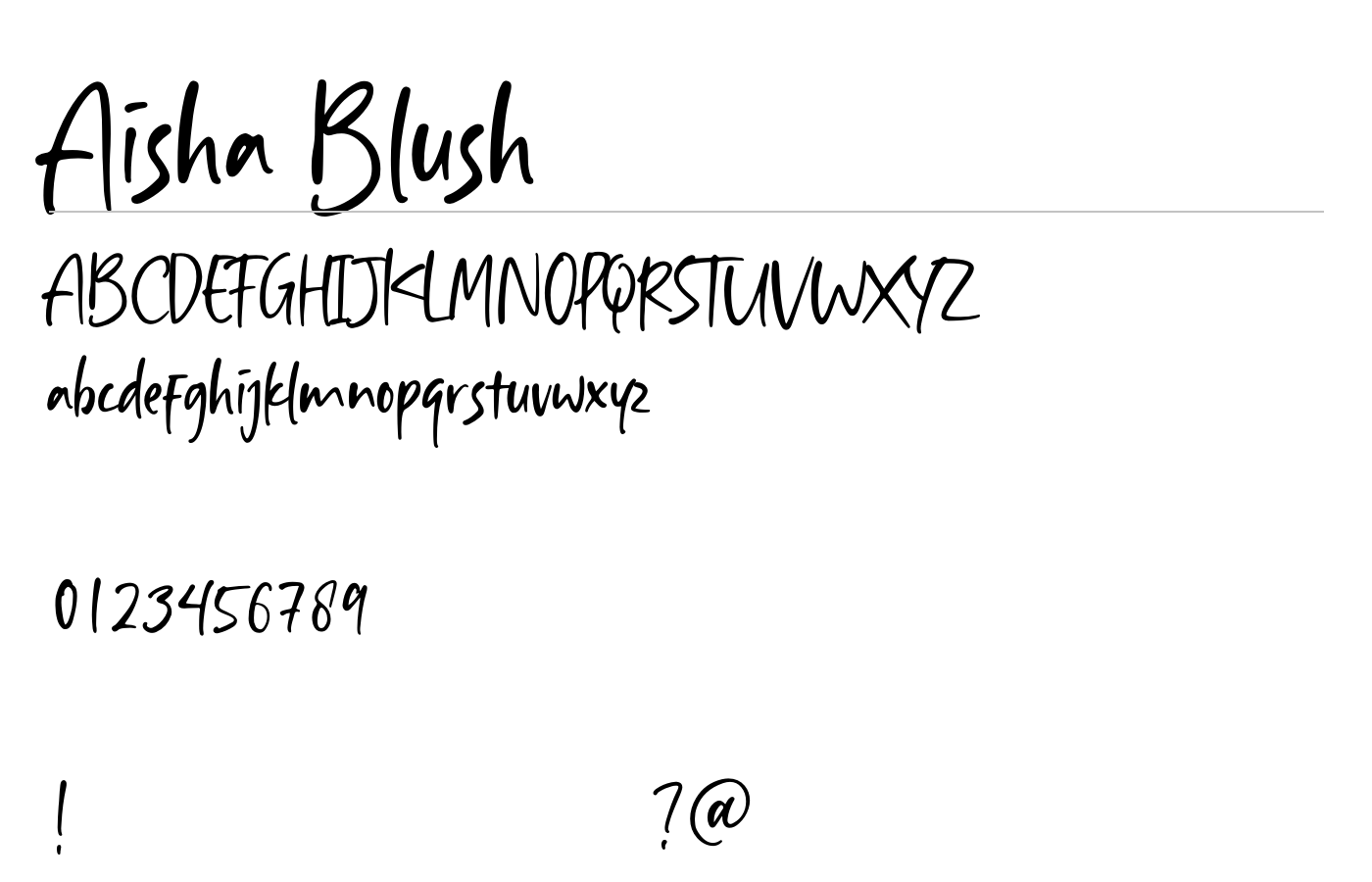
Aisha Blush is a playful, casual handwritten sans serif font with a light to regular weight and narrow proportions. Its tall, slightly irregular letters and smooth, flowing strokes give it a friendly and approachable feel, making it perfect for creative, informal designs like greeting cards, branding for lifestyle products, or social media graphics. The font’s energetic yet clear style works well in headlines or short texts where a personal, human touch is desired.
Aisha Blush Font
About Aisha Blush Font
| Font family | Aisha Blush Font |
| Designer | Muhamad Yusron Billah |